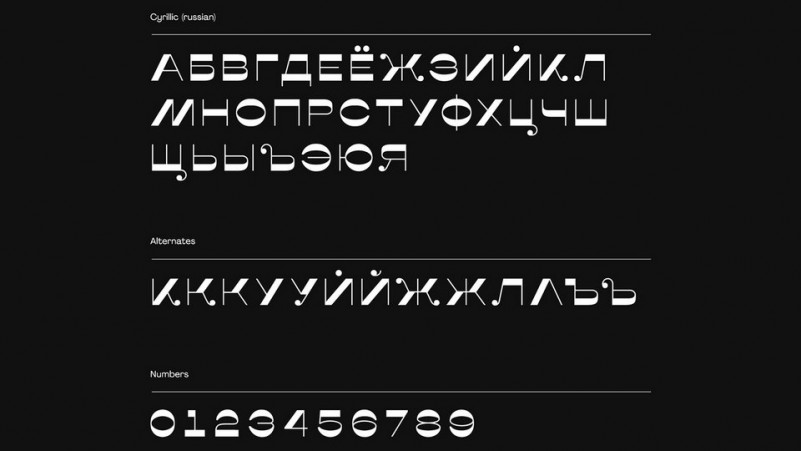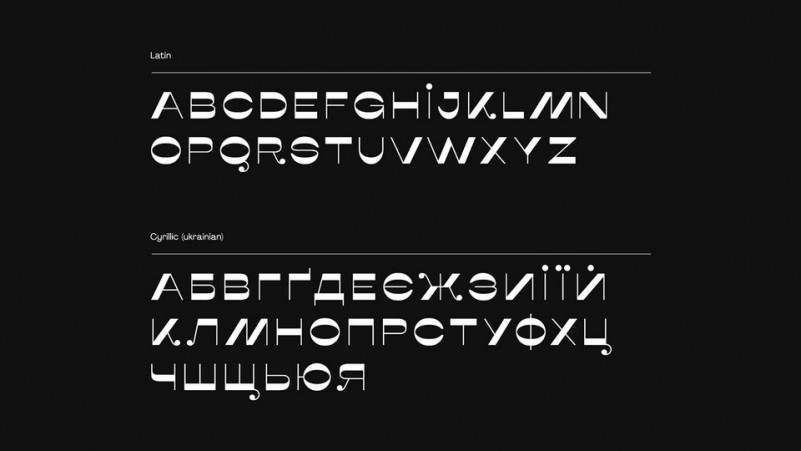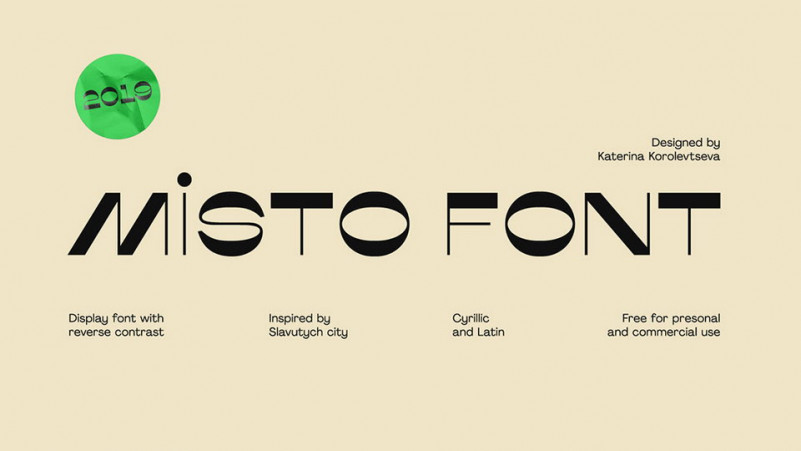
Misto Free Font
Misto font is a free reverse-contrast display typeface inspired by Slavutych — the youngest city of Ukraine, which was born after the Chernobyl explosion. Misto font designed to work best in headlines, including logo design, brand identities, websites, packaging and posters. It supports both cyrillic and latin versions.